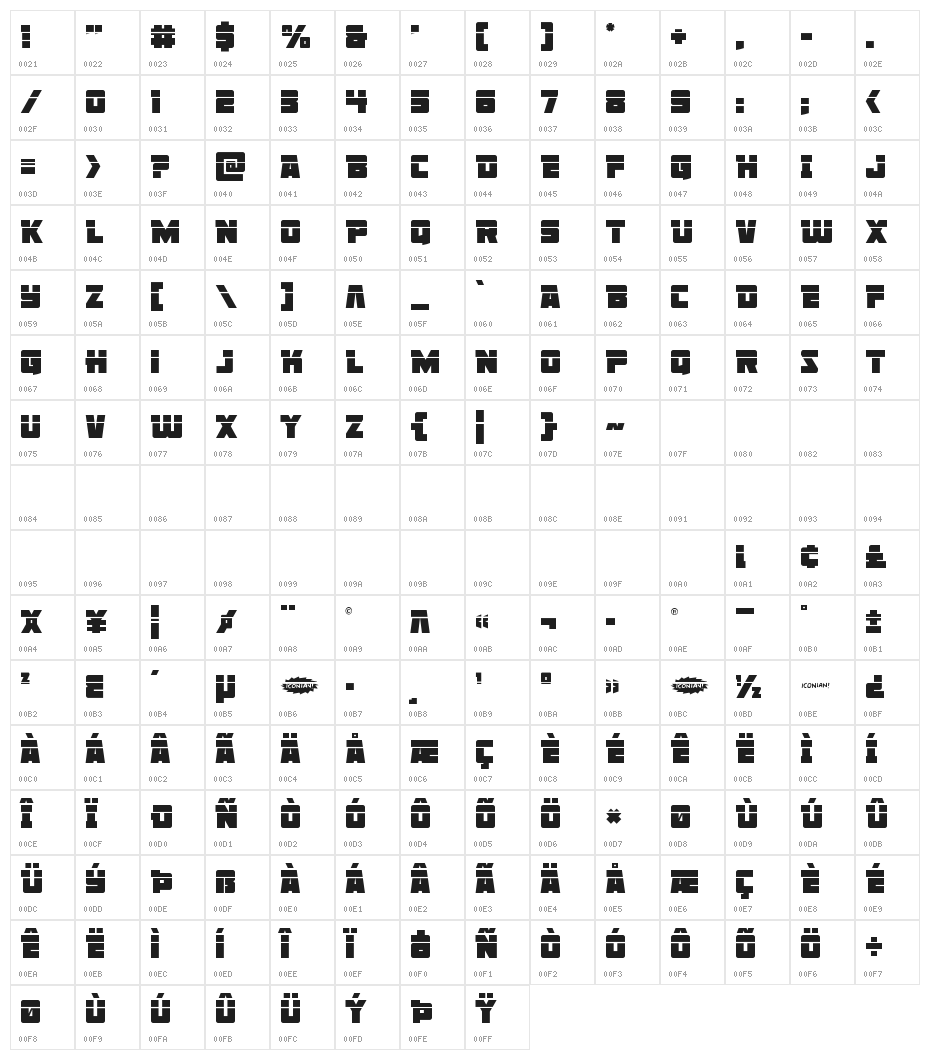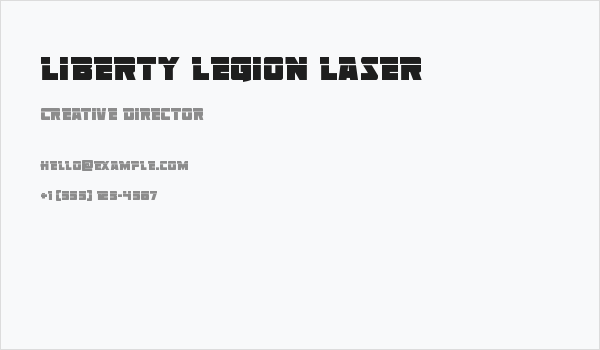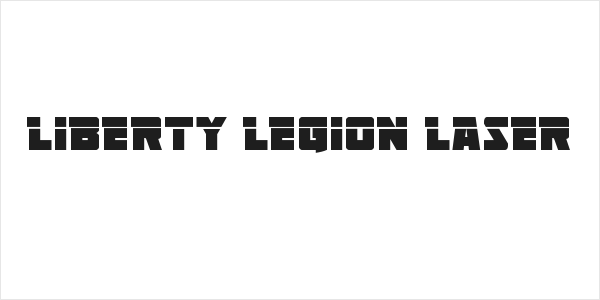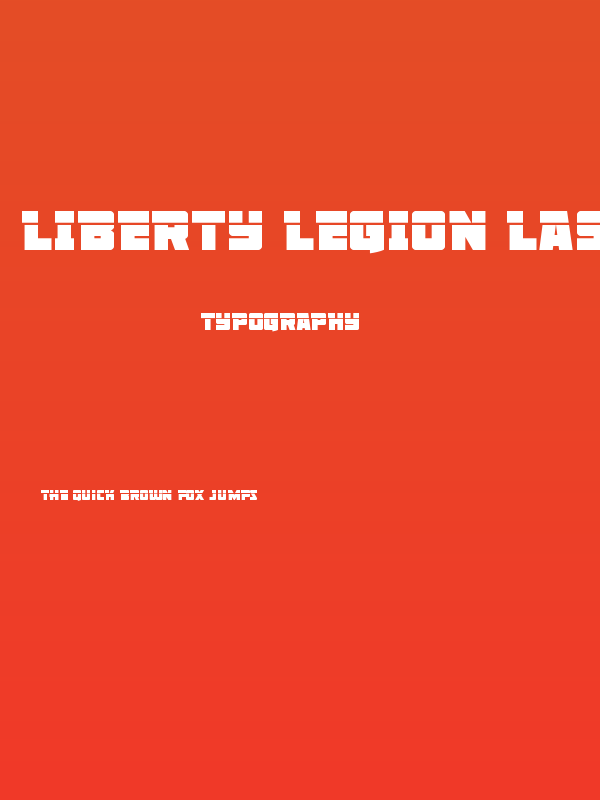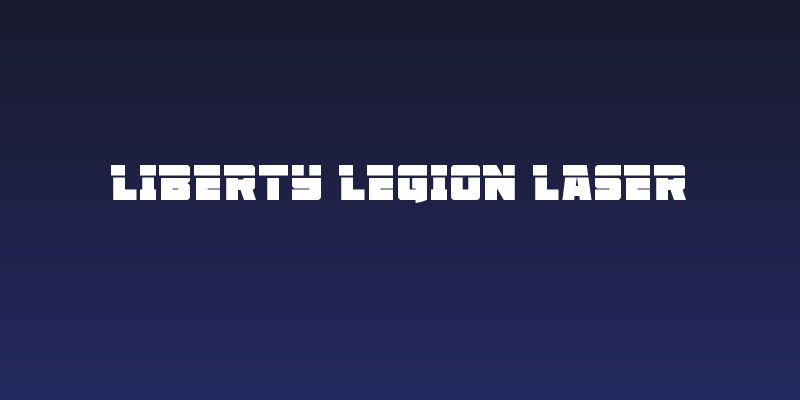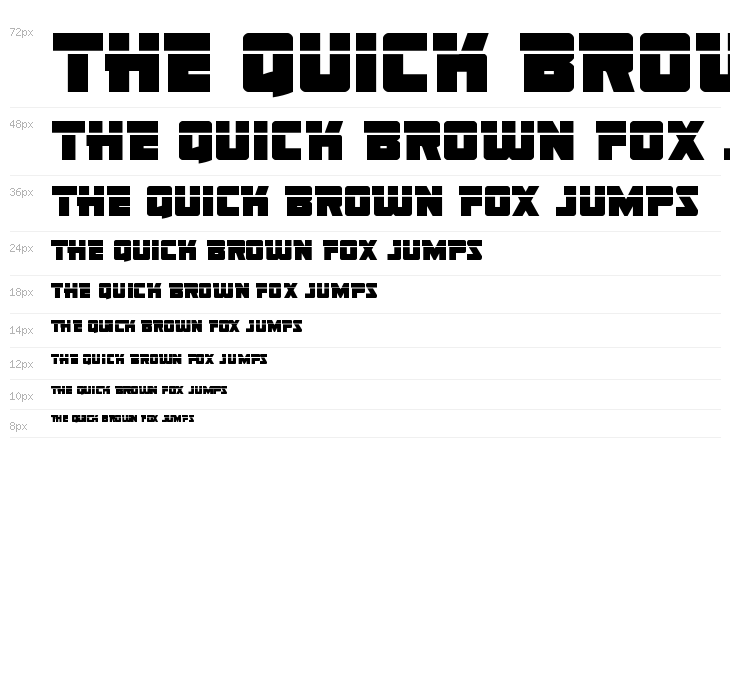
Liberty Legion Laser Font
Liberty Legion Laser Description
This font features a bold and futuristic design with a strong geometric structure. The characters are blocky and angular, giving it a robust and industrial feel. The uppercase letters are uniform in height, while the lowercase letters maintain a similar width, creating a cohesive look. The numbers and special characters follow the same bold style, ensuring consistency across all elements. This font's distinct appearance makes it stand out, ideal for projects that require a modern and impactful visual presence.
Proposed ProjectsIdeal for sci-fi themed designs, video game graphics, posters, and branding that requires a strong, modern look.